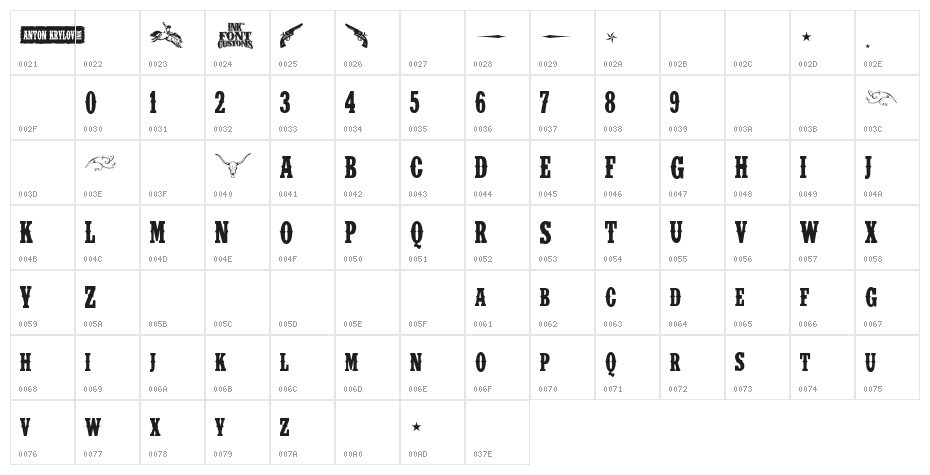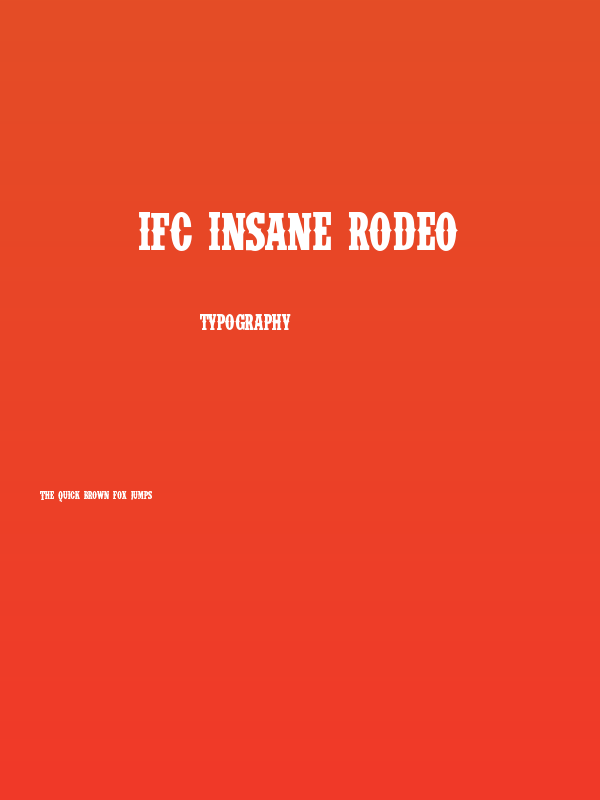
IFC INSANE RODEO Font
✎ Western
| Progetti proposti | Perfect for posters, branding, and signage that require a Western or vintage Americana theme. |